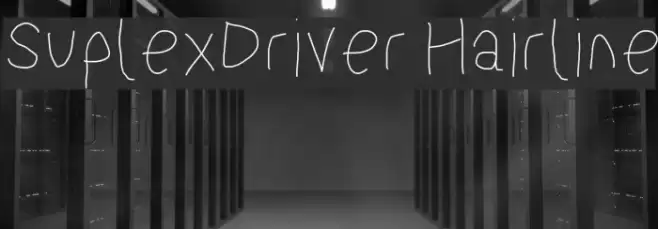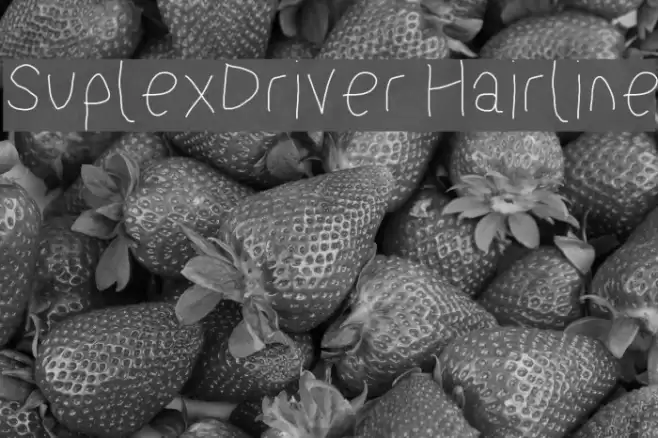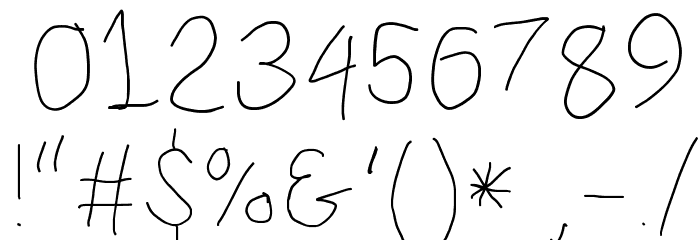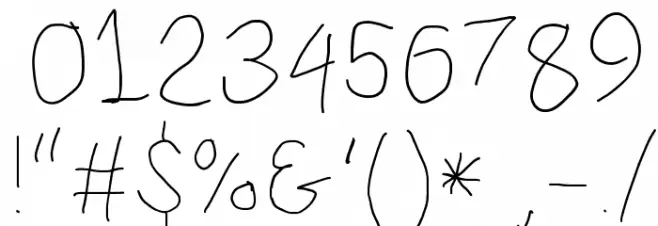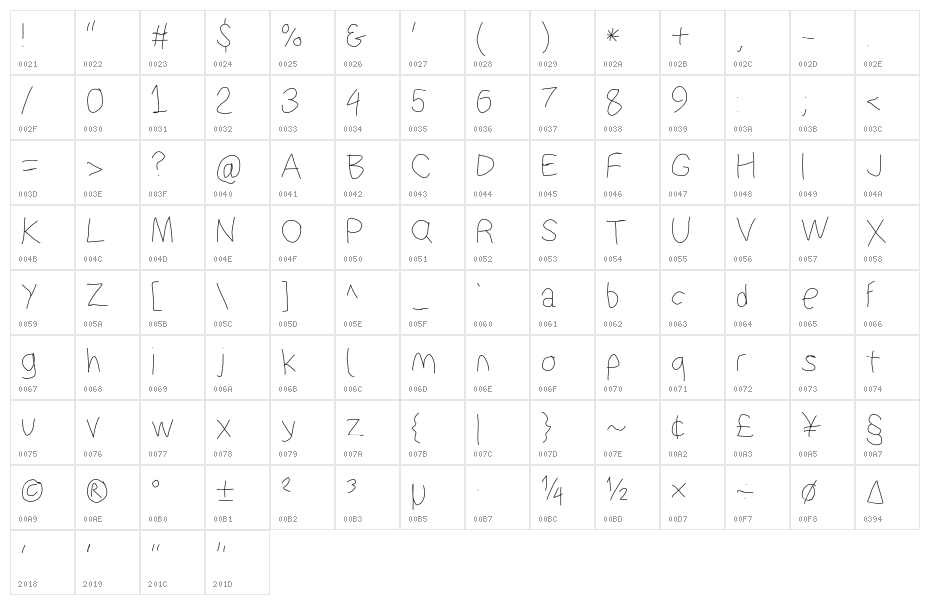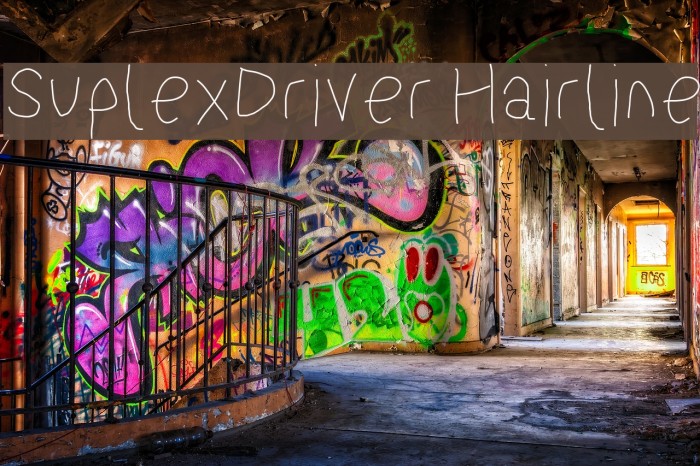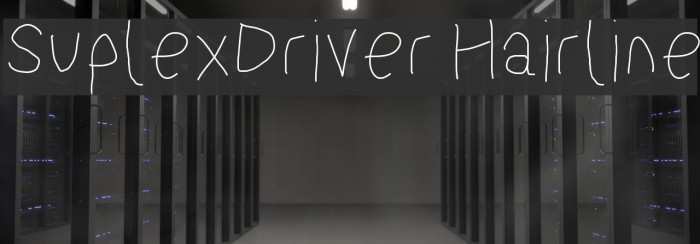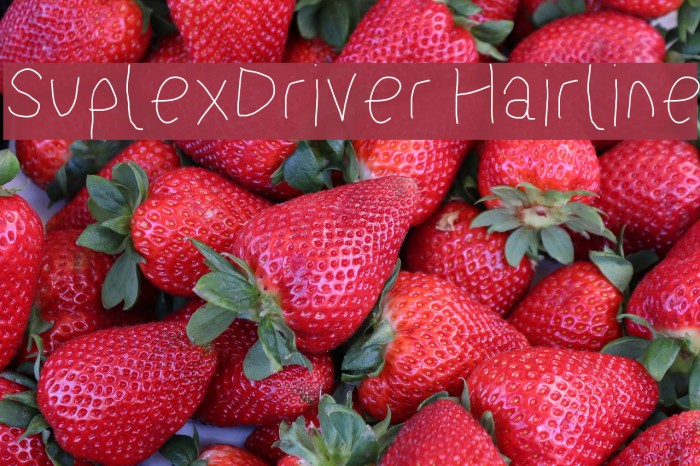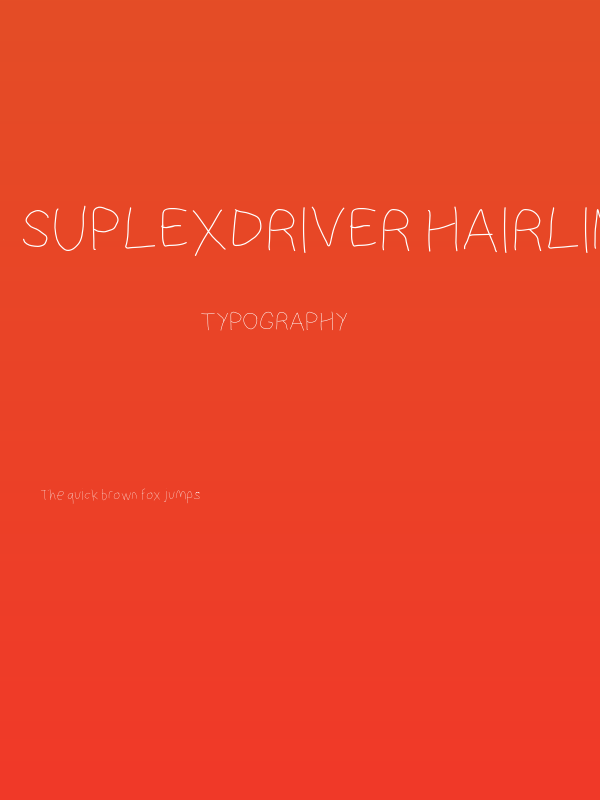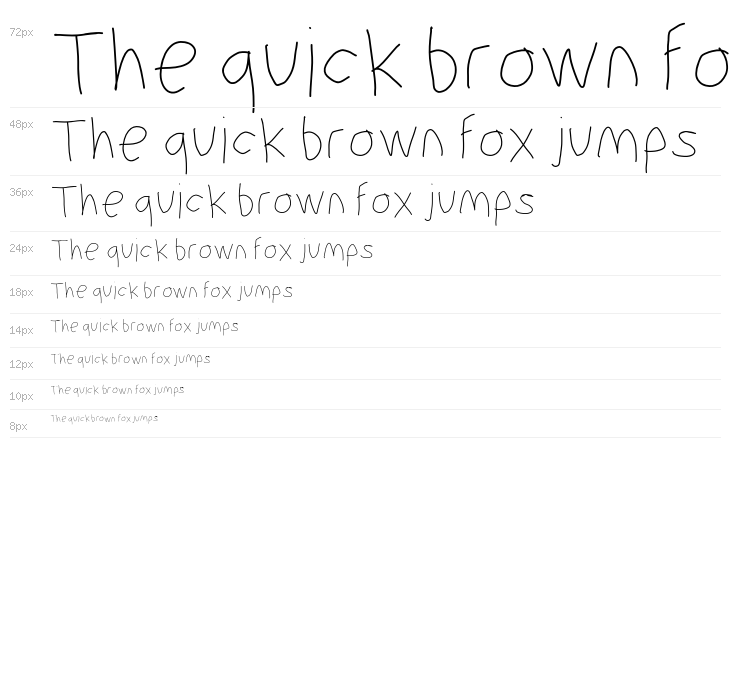
SuplexDriver Hairline Font
SuplexDriver Hairline Description
This font features a playful and casual handwritten style, characterized by its thin, hairline strokes that give it a light and airy feel. The letters are slightly irregular, adding to its informal and approachable appearance. The uppercase and lowercase letters maintain a consistent style, with rounded edges and a slight tilt that suggests a natural, flowing handwriting. Numbers and special characters are designed to match the whimsical nature of the alphabet, making it versatile for creative projects. The overall design is simple yet expressive, perfect for conveying a personal touch.
A playful, handwritten font with thin, hairline strokes and a casual, informal style from Handwritten fonts.
- Proposed Projects: Ideal for greeting cards, personal notes, children's books, and creative branding projects.
- Overall Style: Casual
- Use Case: Logos, Creative projects, Personal notes